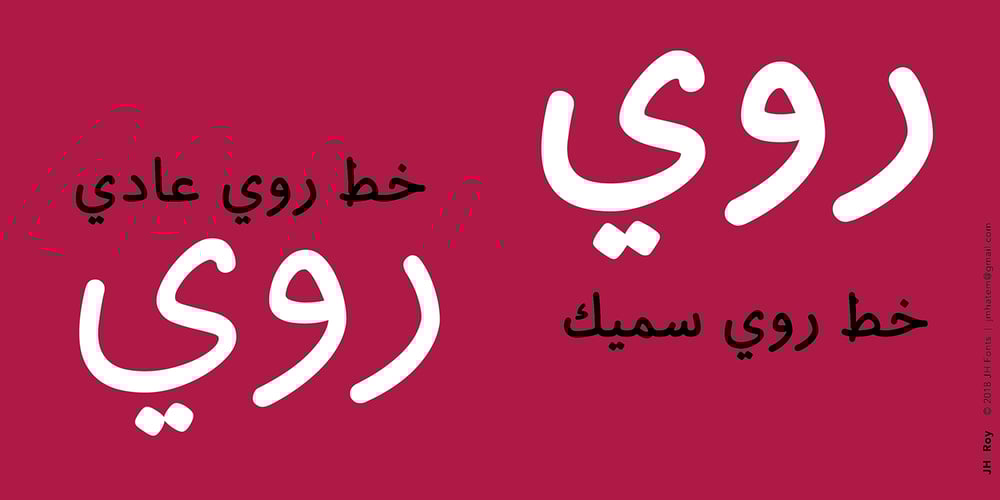
JHRoy
JHRoy font
JHRoy Font Family was designed by Joe Hatem and published by JH Fonts. JHRoy contains 3 styles and family package options. JH Roy is an Arabic handwriting Naskh typeface, including two weights; it is typical for long running text, headlines, branding & signage… The diacritic positioning is fine tuned per the publishers requirements.